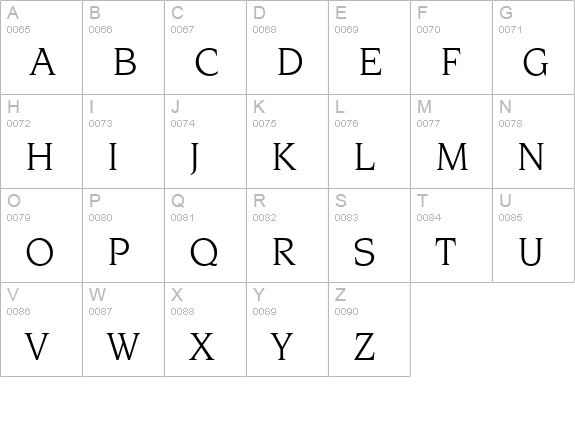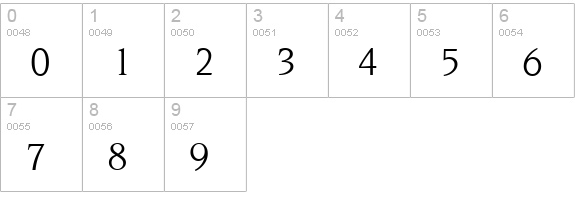
Navarro-Book Font Details
Navarro-Book is a comfortable, highly readable variant in the Navarro typeface family \xE2\x80\x94 well suited to long-form body text, articles, and editorial content.
Navarro-Book is a stunning and versatile font that exudes elegance and sophistication. With its sleek lines and contemporary design, Navarro-Book is perfect for a wide range of projects, from branding to editorial design. The clean and modern aesthetic of this font makes it a fantastic choice for both print and digital applications. Best of all, Navarro-Book is available for free download at FontsMarket.com, making it accessible to designers of all levels. Elevate your designs with Navarro-Book and add a touch of class to your work today!